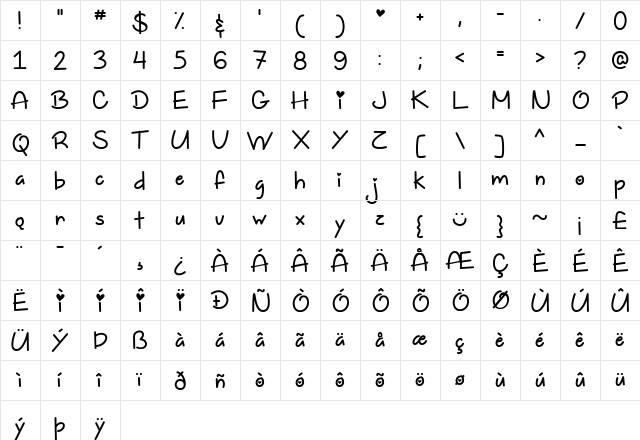
Too Freakin Cute Demo Regular
Design Context for Too Freakin Cute Demo Typeface
Too Freakin Cute Demo is a composed and adaptable typeface that performs quietly and consistently across a wide range of design contexts.